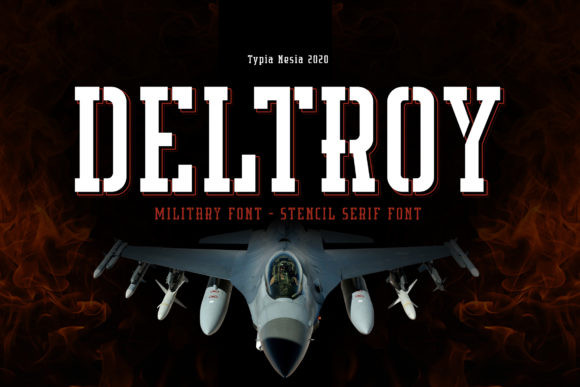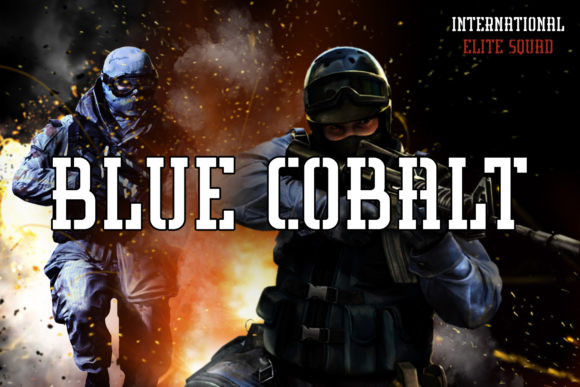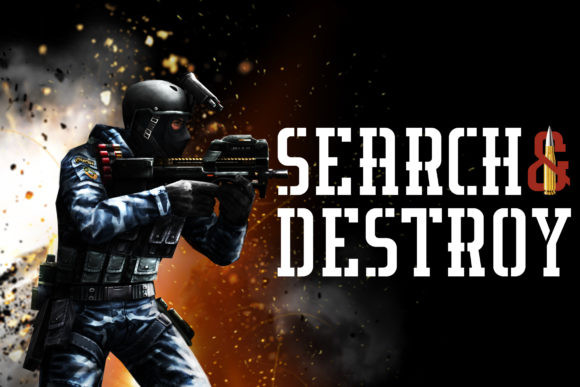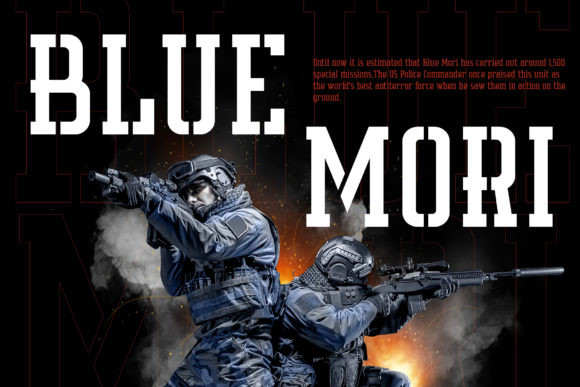
Deltroy Font
Deltory is a serif font, carefully handcrafted to become a true favorite. This font will look outstanding in any context, whether it’s being used on busy backgrounds or as a standalone headline!